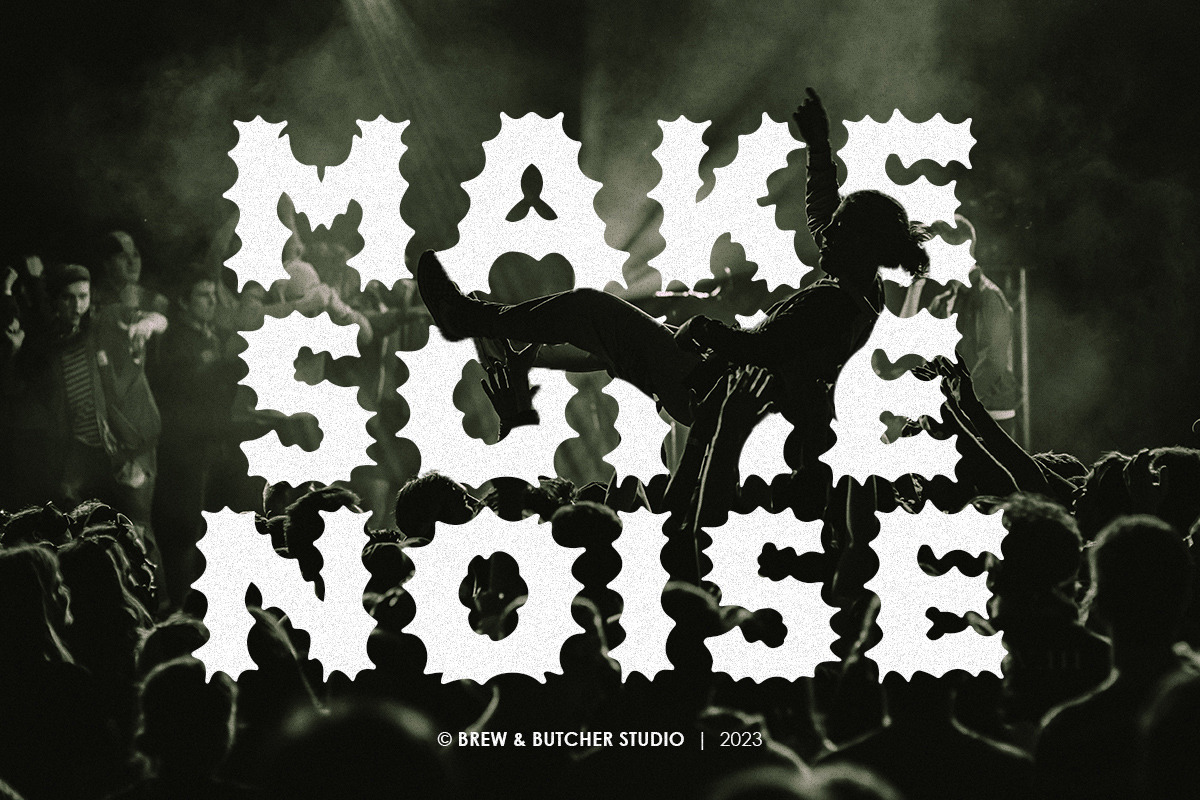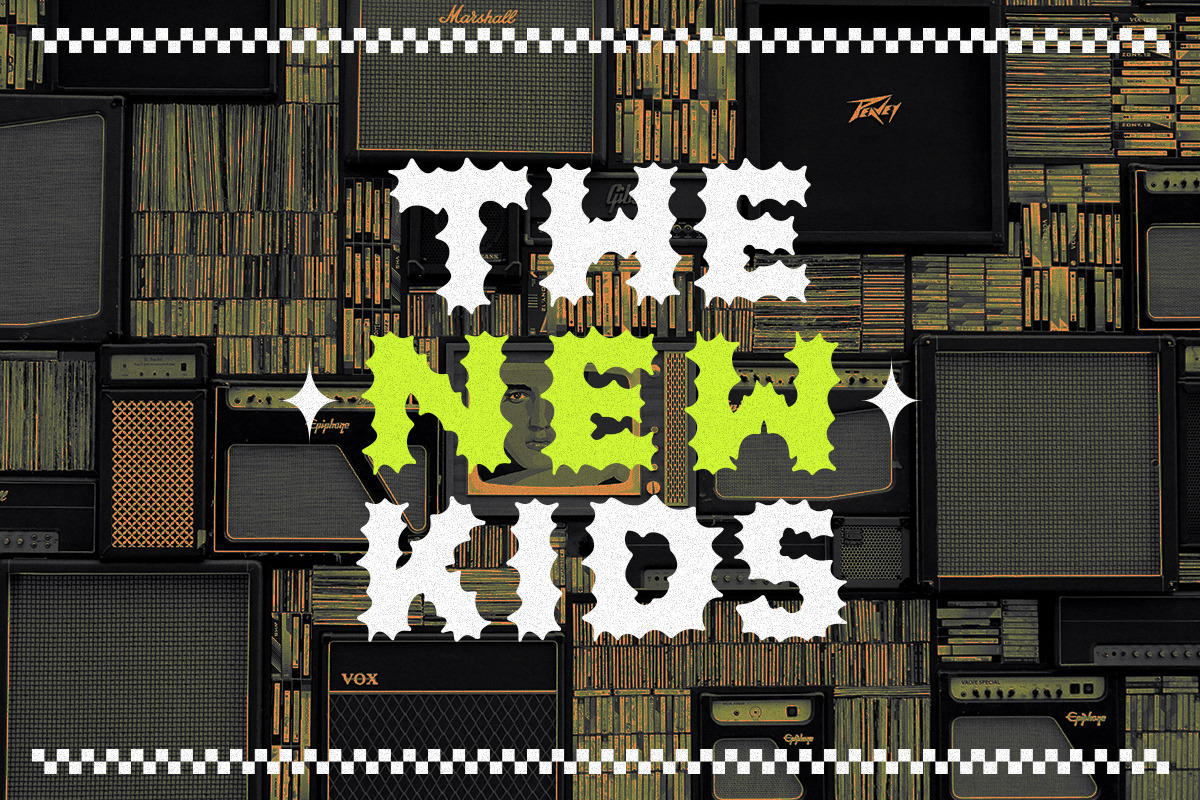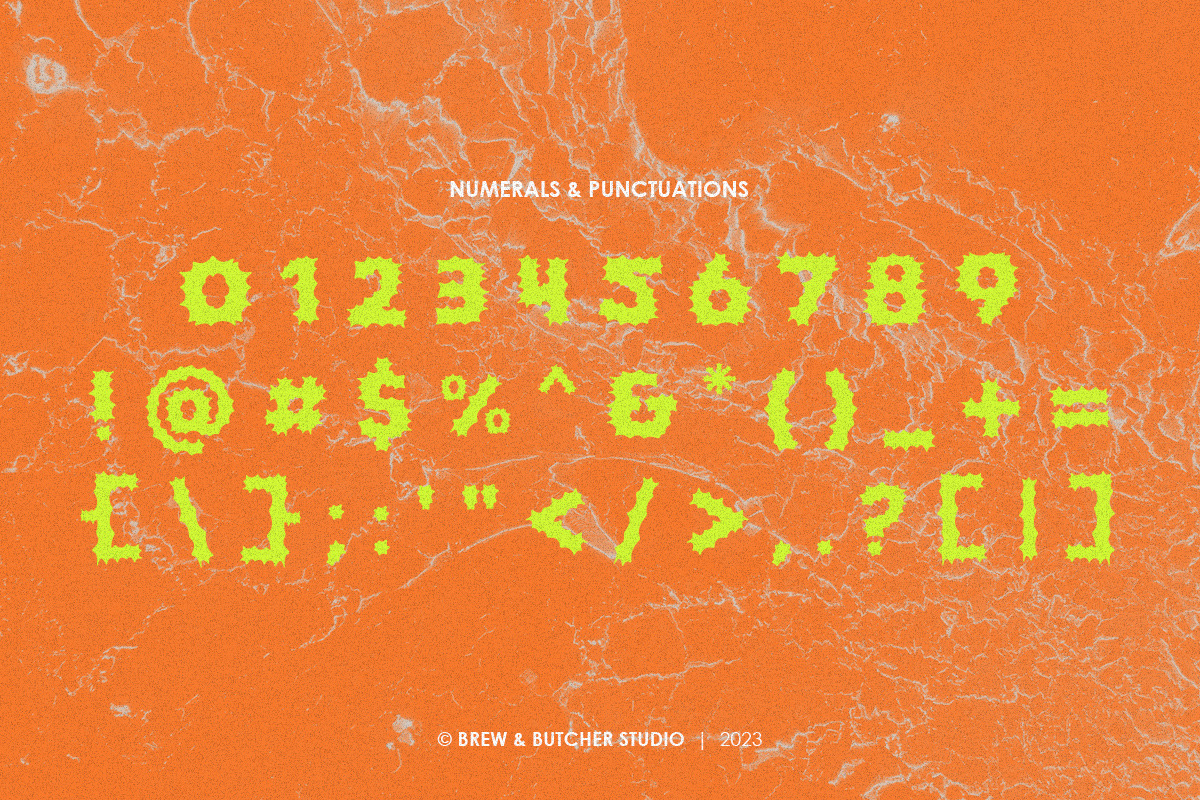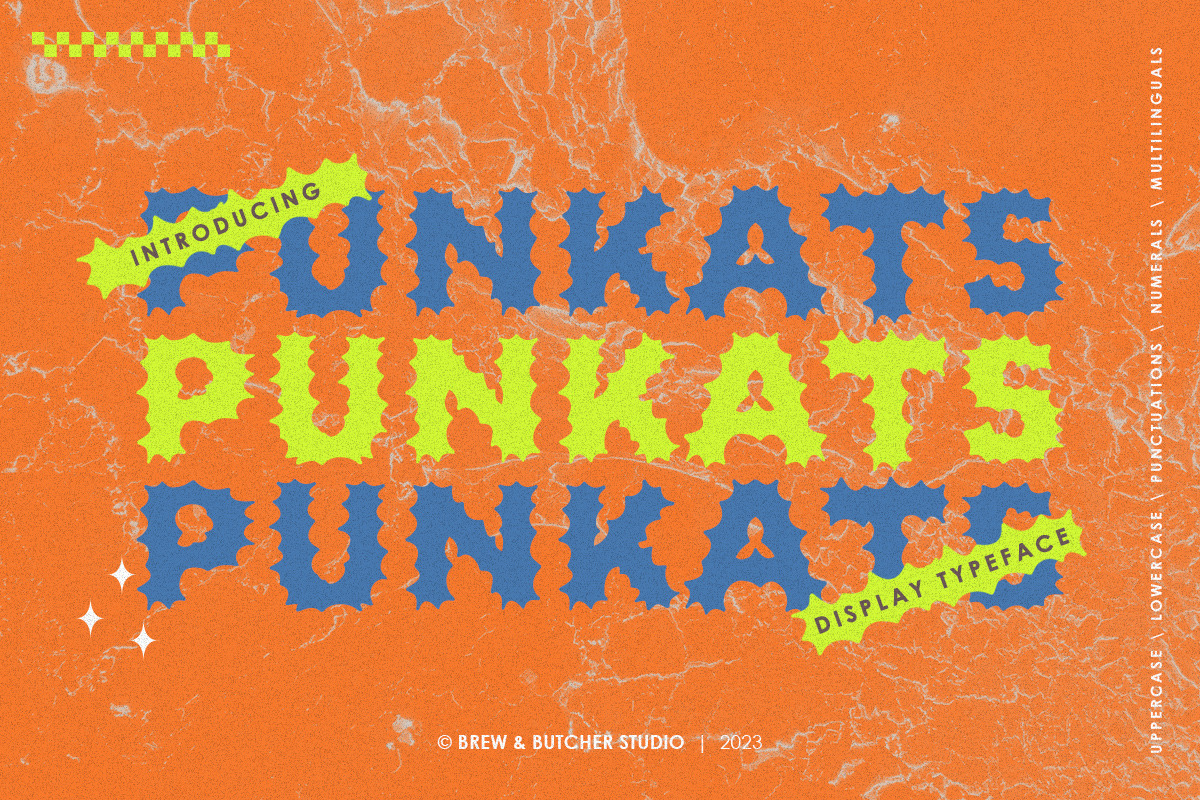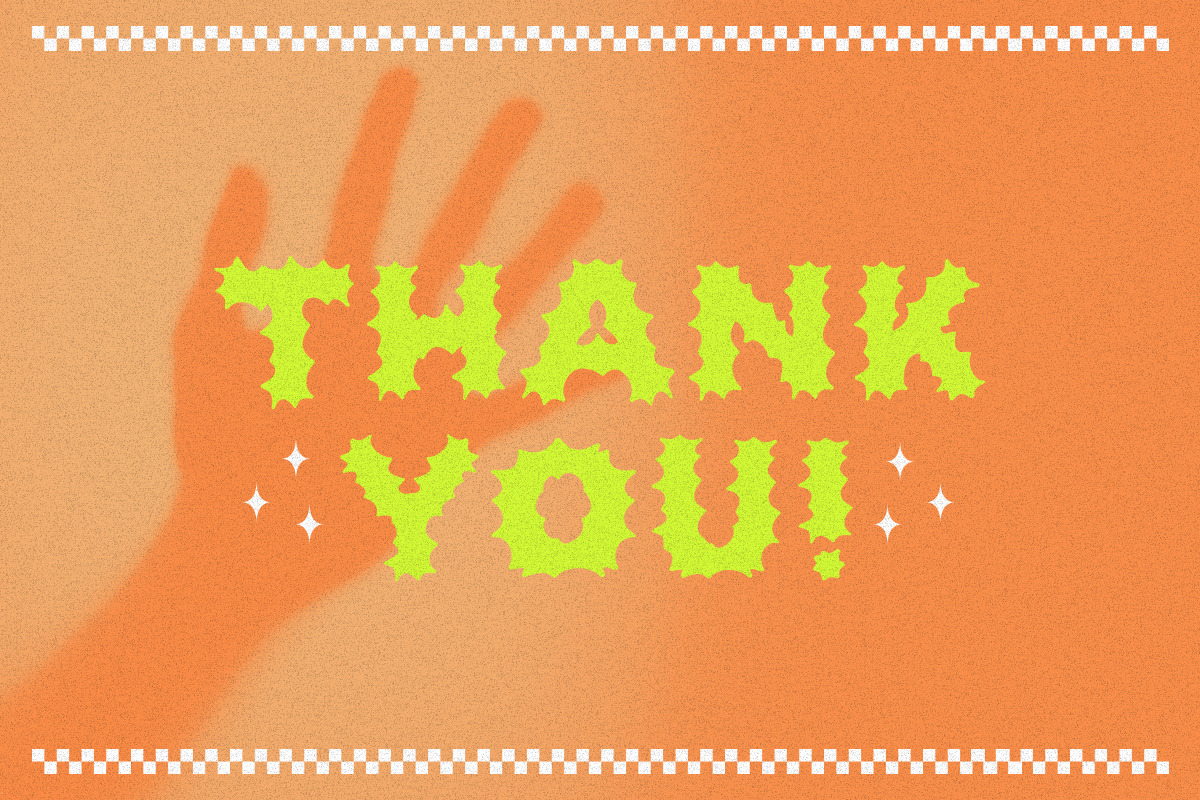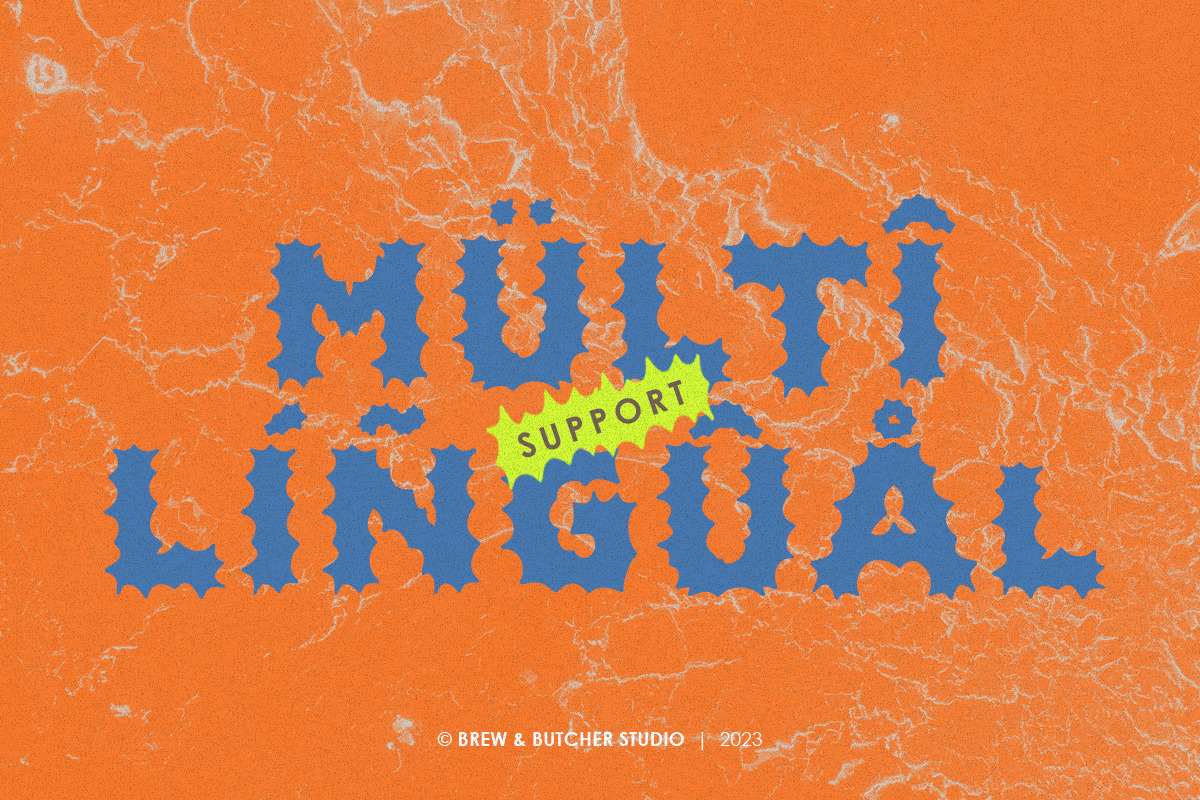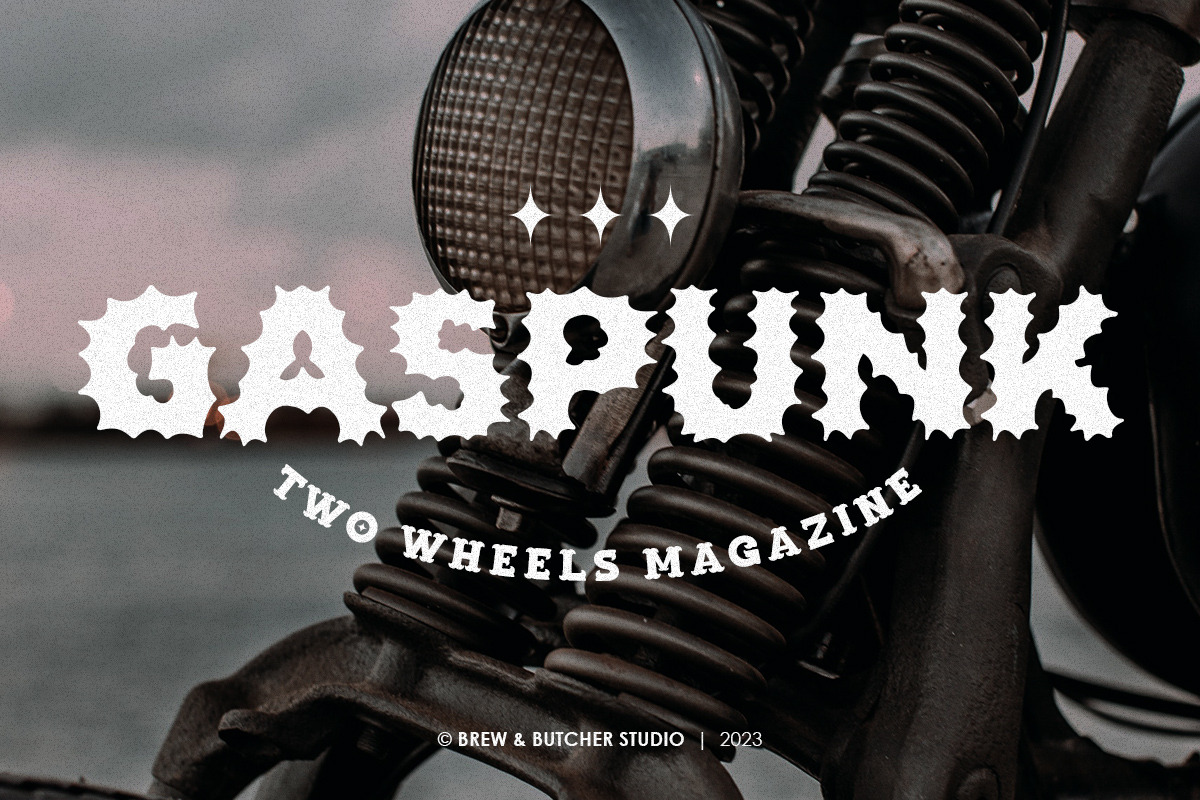
Punkats | Display Typeface
Punkats is a letters that have a tough, brave, and developing style. Inspired by hard music such as punk, metal, and hardcore, accented by curved and sharp lines giving a very frightening unity. This font is best to use for header or headline, poster, flyer, banner, landingpage, portfolio, name write, album covers, and etc.
- Multilanguage